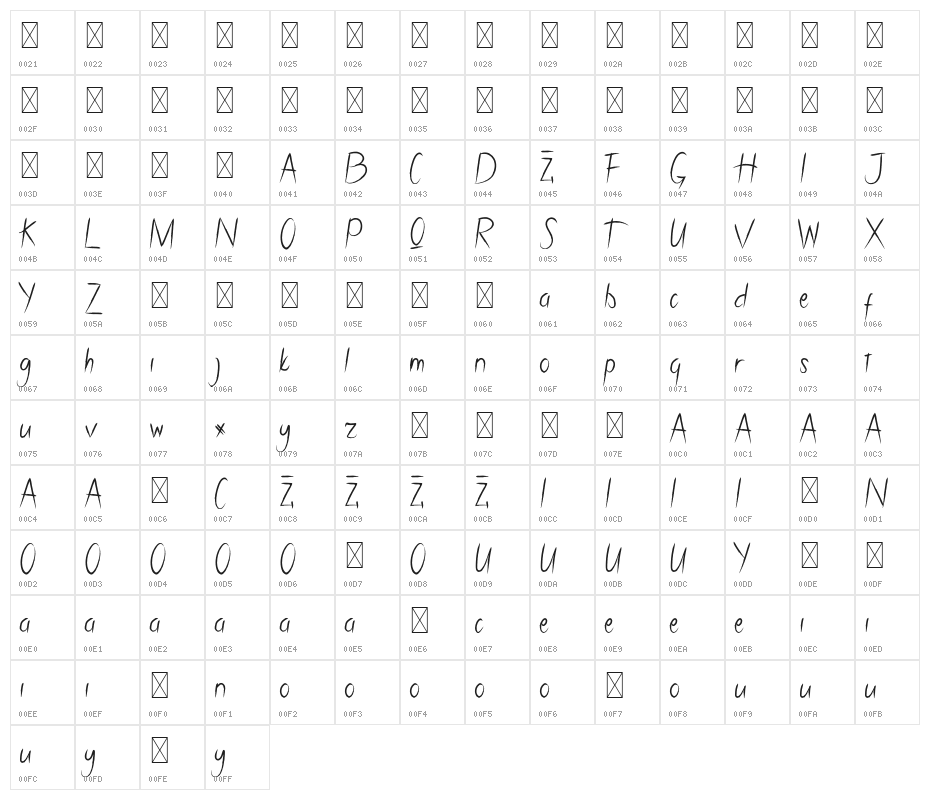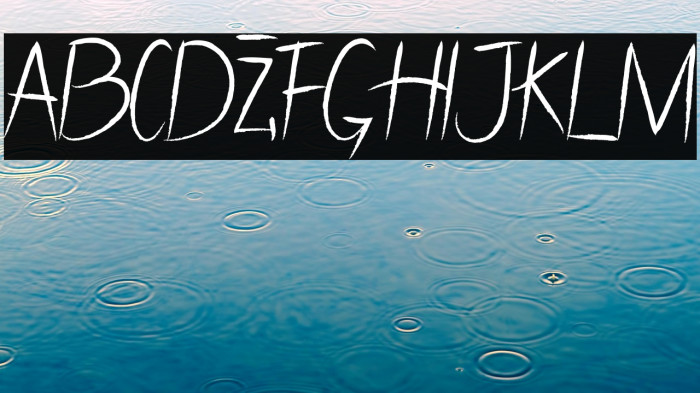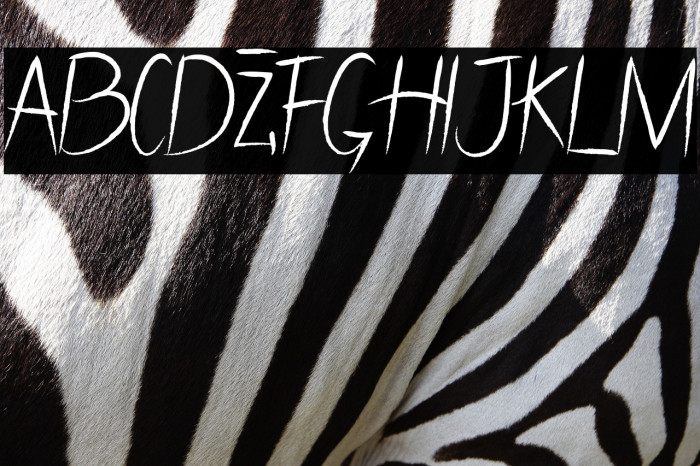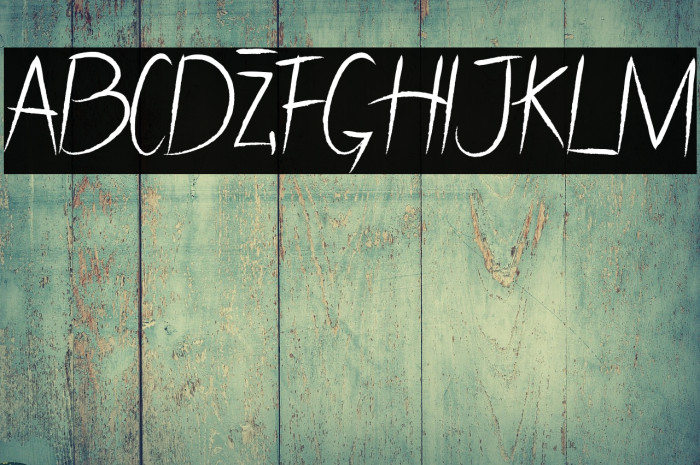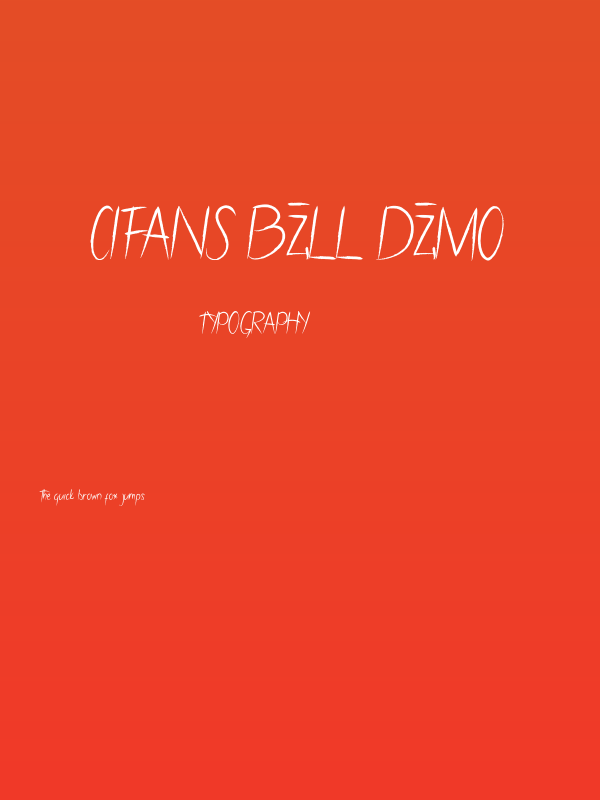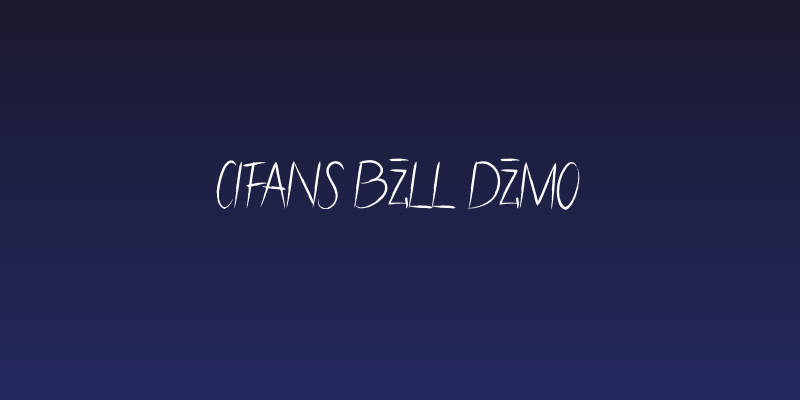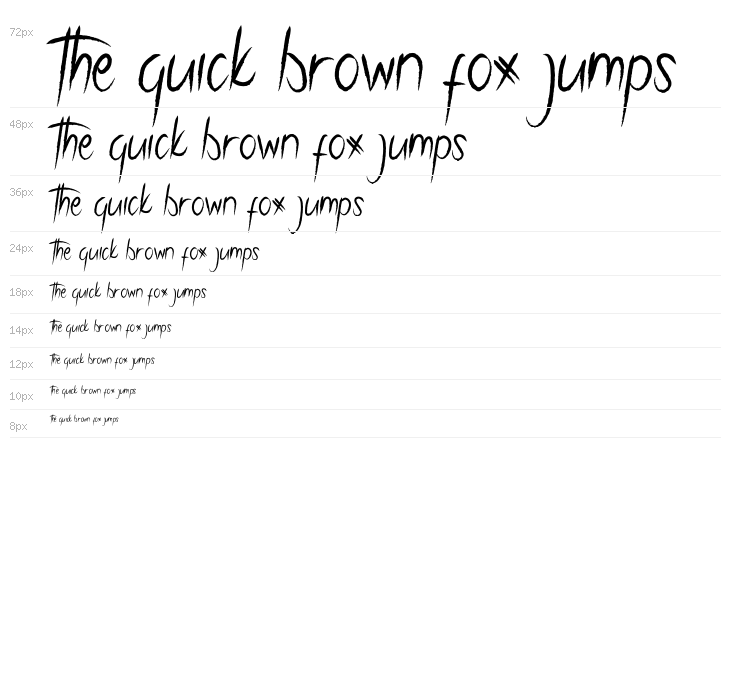
Cifans Bell Demo Font
Cifans Bell Demo Description
This font features a dynamic and expressive style, characterized by its handwritten appearance. The letters are slightly irregular, with varying stroke thickness that adds a sense of movement and energy. The uppercase letters are tall and slender, while the lowercase letters maintain a consistent flow, enhancing the font's organic feel. The overall design is informal yet stylish, making it suitable for projects that require a personal touch. The font's unique character is further emphasized by its playful and artistic flair, making it stand out in creative applications.